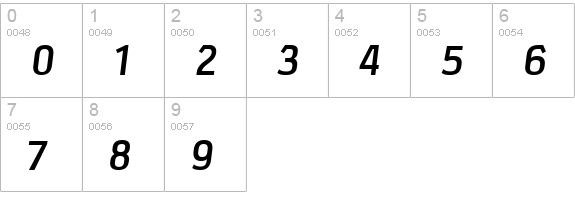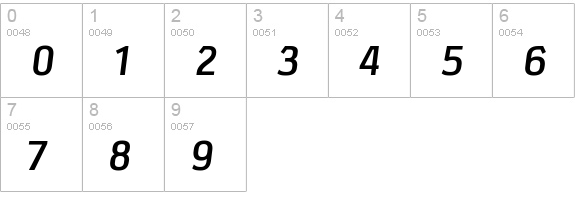
Xenu Bold Italic is a strong, high-contrast, italic variant in the Xenu typeface family \xE2\x80\x94 well suited to headlines, attention-grabbing titles, and strong calls-to-action.
The Xenu Bold Italic font is a striking and versatile typeface that exudes confidence and elegance. Its bold and italic design adds a touch of sophistication to any project, making it perfect for headlines, titles, and branding. The sleek curves and sharp lines of Xenu Bold Italic create a modern and stylish look that is sure to capture attention. This font is not only visually appealing but also incredibly practical, as it is highly legible even at small sizes. Whether you're designing a poster, a website, or a logo, Xenu Bold Italic is a fantastic choice that will elevate your work to the next level. The best part? Xenu Bold Italic is completely free to download at FontsMarket.com. So why wait? Enhance your designs with this beautiful and impactful font today!